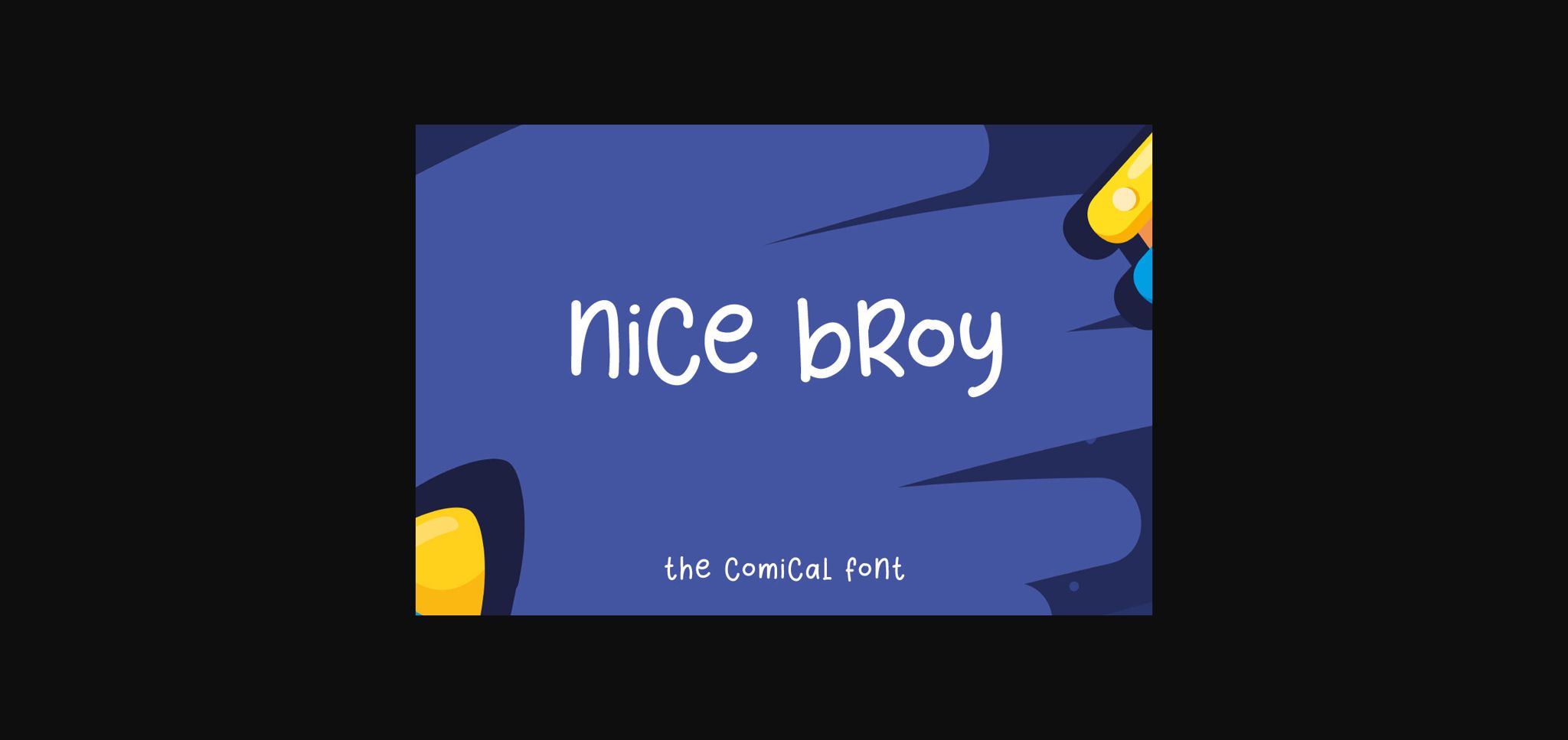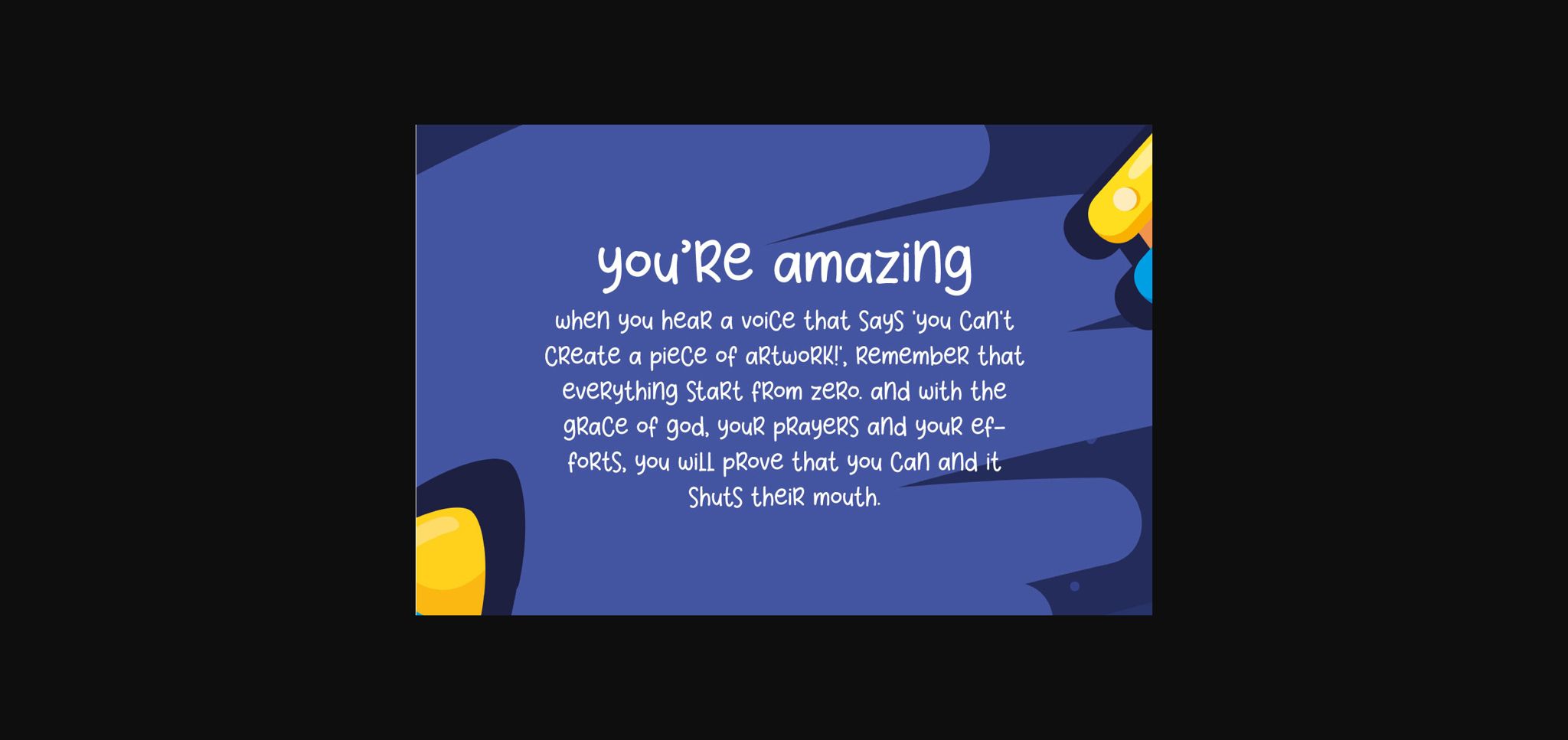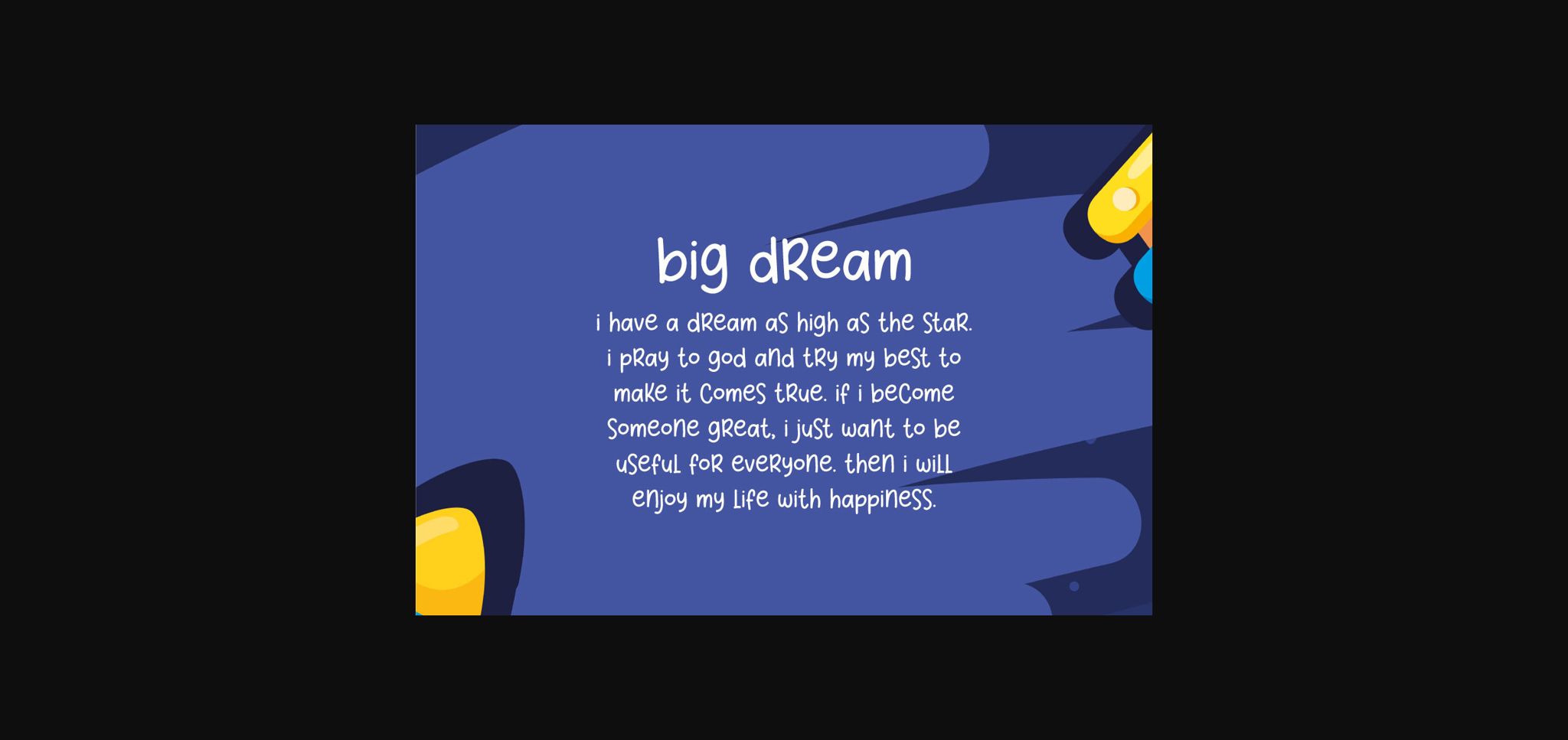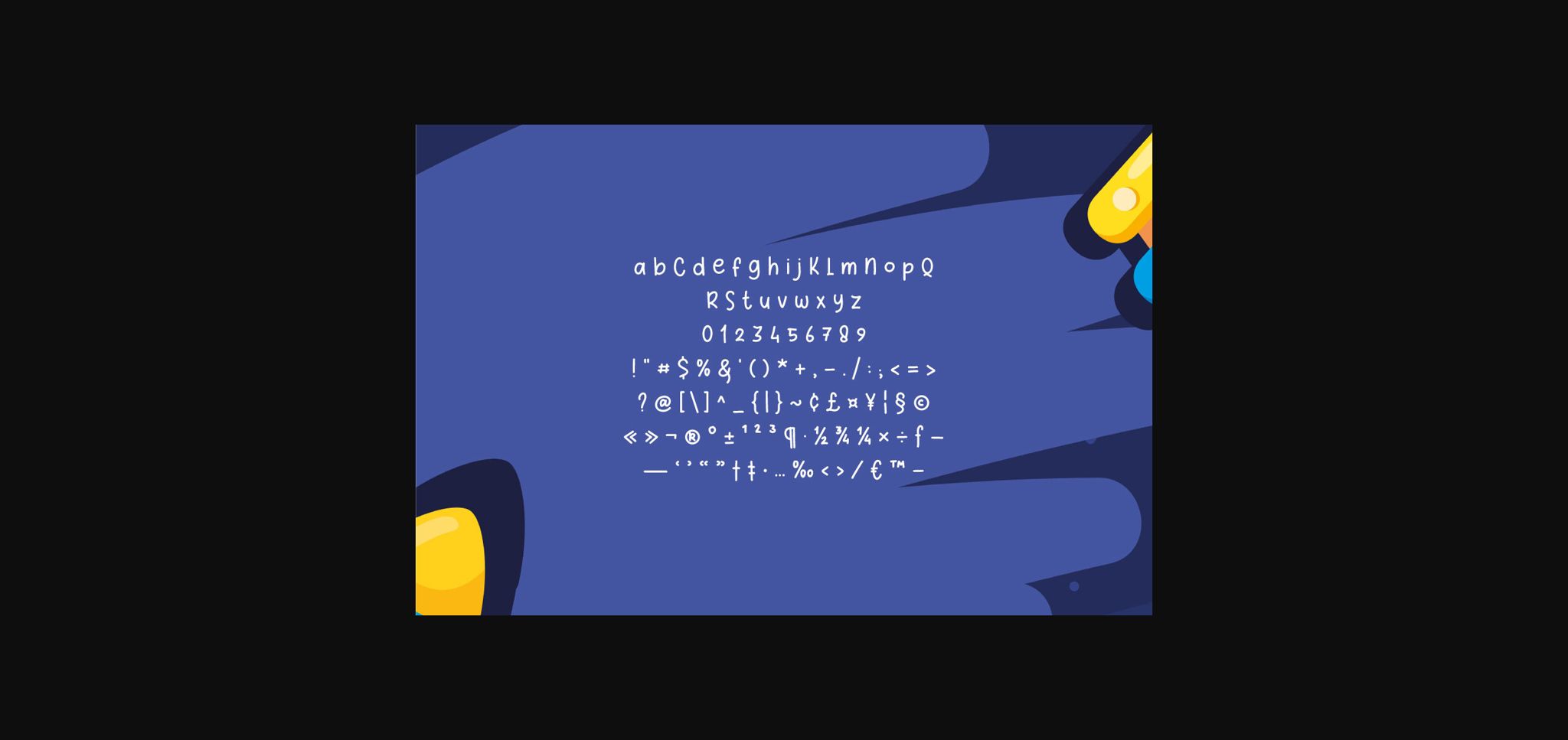
About Nice Broy Font
**Nice Broy** is a comic cute sans serif font.
Nice Broy can be used in any work such as comic books, posters, school, flyers, book titles, advertisements, social media content, logos, and many more.